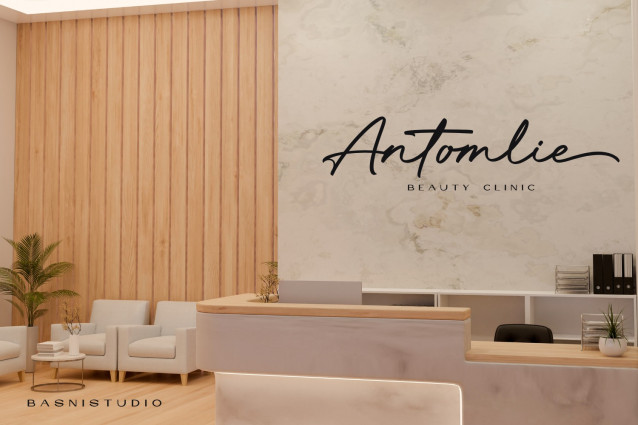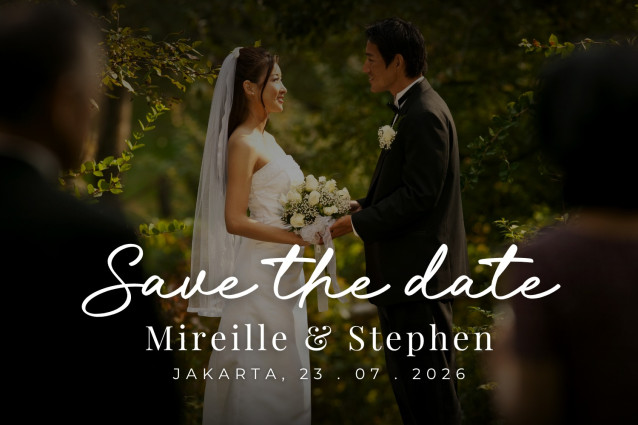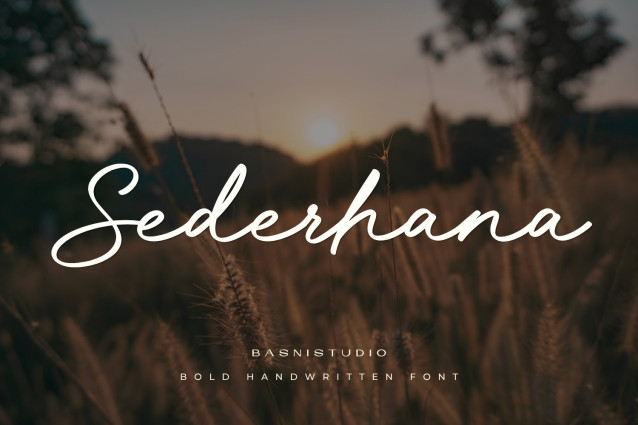
Sederhana Font
Sederhana Font– Bold Handwritting Font Created with real pen strokes for a natural look and casual touch to everything from branding and social media to invitations and packaging.